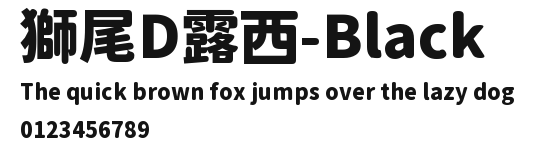
獅尾D露西-Black Preview
About 獅尾D露西-Black.ttf
獅尾D露西-Black.ttf is a modern, elegant sans-serif font designed for ultimate readability and visual harmony. Perfect for branding, headlines, web design, and print materials.